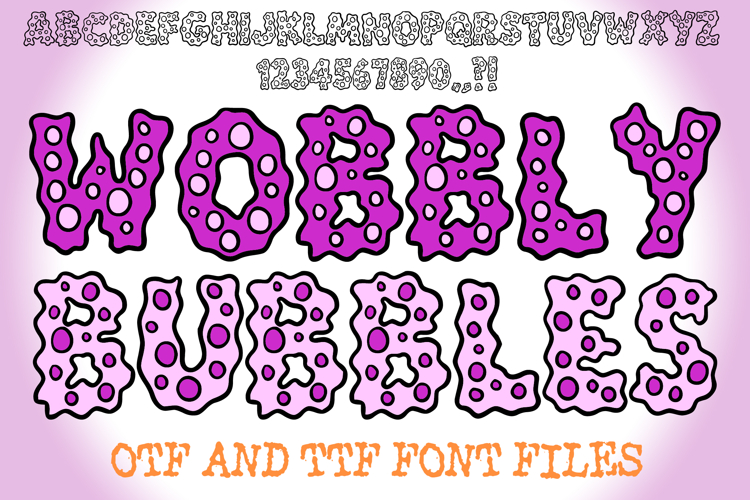
Wobbly Bubbles Alphabet Lettering ABC Text Cartoon Germ Font OTF
A unique style font where you can create your own words and colour them to your vision!